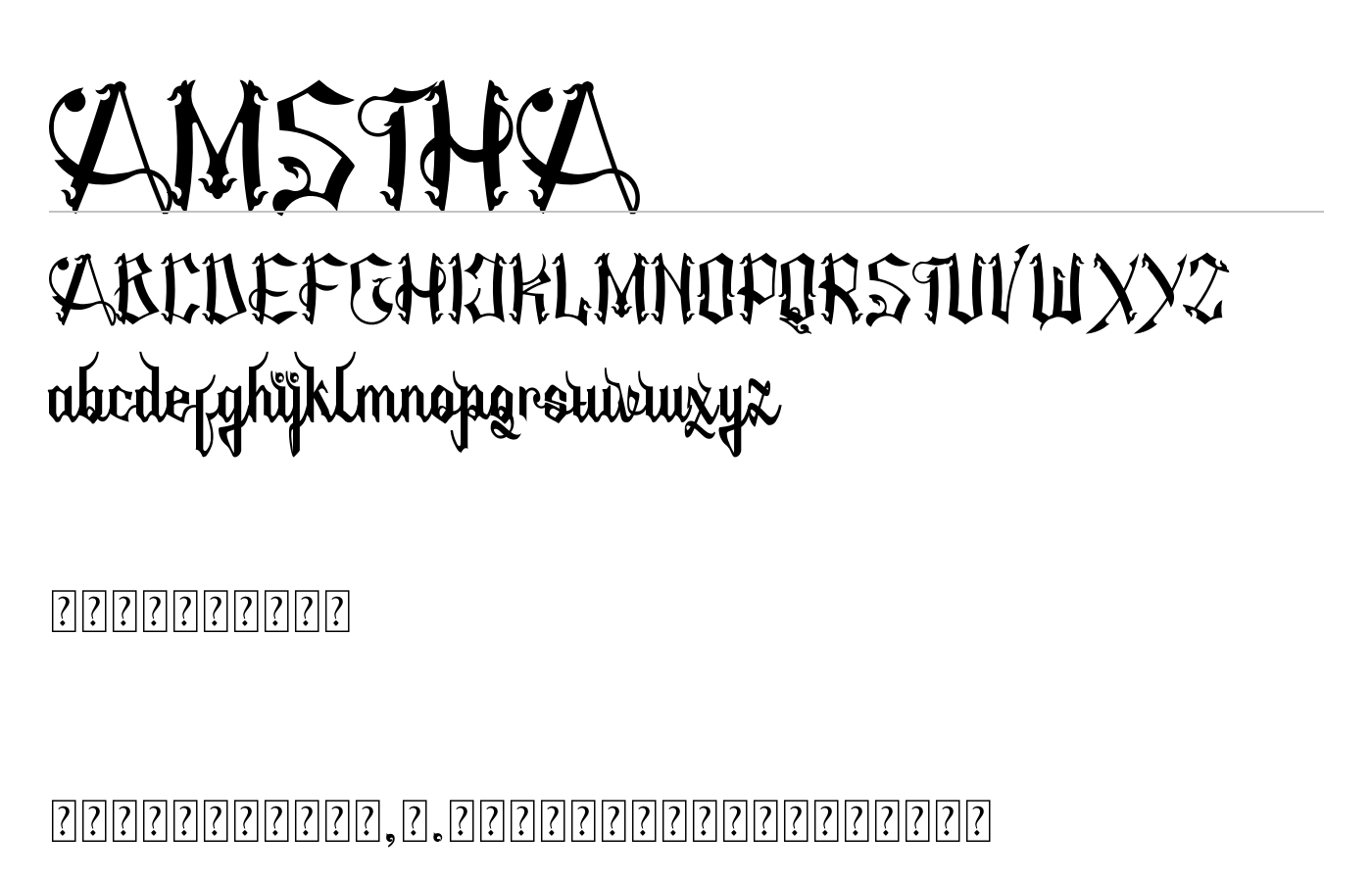
AMSTHA is a decorative blackletter-style font with intricate, sharp details and strong vertical strokes that evoke a Gothic, medieval feel. Its unique flair and elaborate letterforms make it ideal for designs needing a dramatic, vintage, or mysterious atmosphere, such as logos, posters, or thematic headlines. This font stands out best in display settings where its ornate character can be fully appreciated.
AMSTHA Font